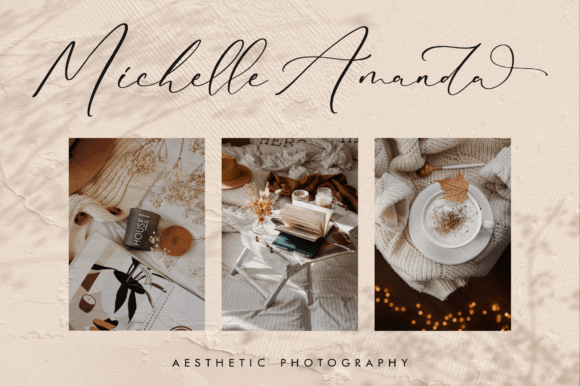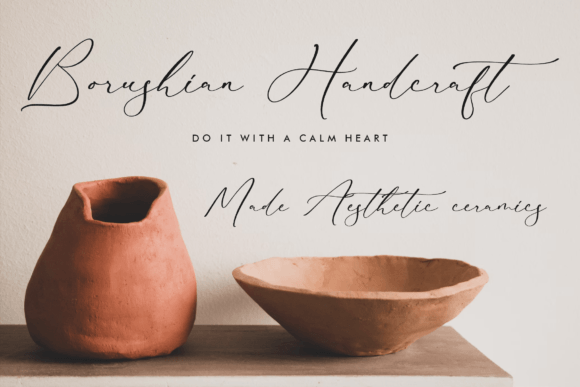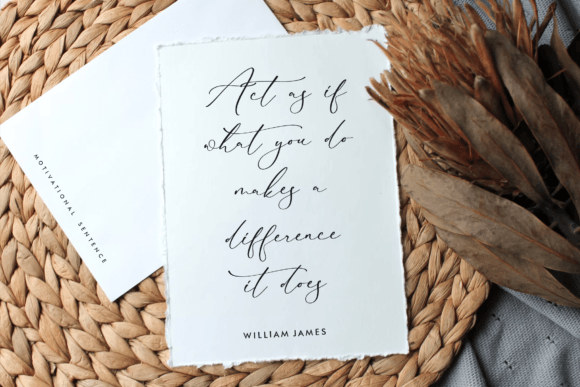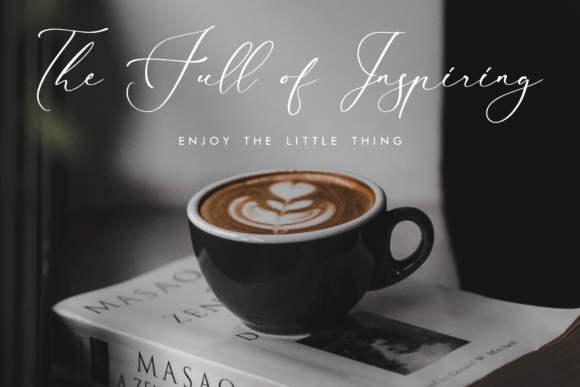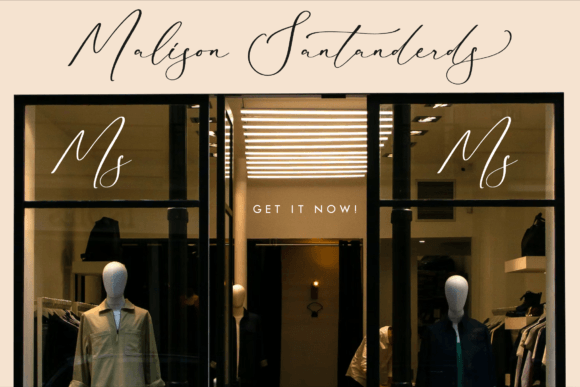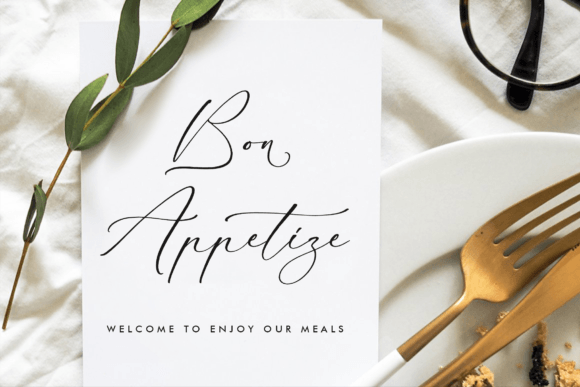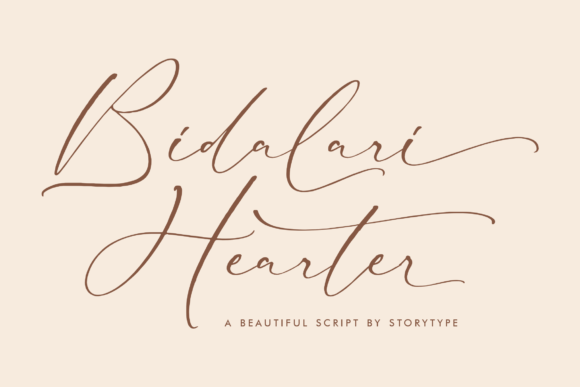
Bidalari Hearter Font: Elevate Your Designs with Elegance and Luxury
In the world of typography, fonts play a crucial role in conveying the tone and personality of a brand, product, or creative project. For designers and crafters seeking to add a touch of sophistication and glamour to their work, the Bidalari Hearter font is an exceptional choice. This beautiful and luxurious script boasts a unique style and modern look, making it perfect for a wide range of applications, from elegant logos and title designs to fashion branding and editorial projects.
The Unique Charm of Bidalari Hearter
Bidalari Hearter is not just another script font; it’s a typeface that stands out due to its distinctive and refined aesthetic. Its letters are carefully crafted to exude a sense of luxury, making it an ideal selection for projects that demand a high level of sophistication. Whether you’re working on a logo, a book or movie title, a fashion brand, a magazine, or even a clothing line, Bidalari Hearter brings an unparalleled level of elegance to your designs.
One of the key advantages of the Bidalari Hearter font is its versatility. Its luxurious and modern appeal makes it suitable for various creative projects. Here are some of the areas where Bidalari Hearter truly shines:
• Elegant Logos: Create a lasting impression with a logo that embodies luxury and sophistication. Bidalari Hearter is perfect for branding that needs to convey high-end quality and elegance.
• Book or Movie Titles: Add a touch of glamour to your book covers or movie posters. The font’s unique style captures attention and promises an engaging story.
• Fashion Brands: For fashion designers and brands, Bidalari Hearter offers a typographic solution that speaks of luxury and style. It’s ideal for branding, packaging, and promotional materials.
• Magazines: Elevate your magazine’s title pages, headers, and quotes with a font that exudes class and sophistication.
• Clothes and Lettering: From t-shirt designs to custom lettering projects, Bidalari Hearter provides a stylish and contemporary look.
• Quotes and Typography: Make your quotes stand out with a beautiful and luxurious script that adds depth and emotion to your typographic compositions.
Why Choose Bidalari Hearter?
Choosing Bidalari Hearter for your design projects comes with several benefits:
• Unique Style: Stand out from the crowd with a font that has its own distinct character.
• Modern Appeal: Keep your designs contemporary and relevant with a font that embodies modern luxury.
• Ease of Use: Bidalari Hearter is designed to be user-friendly, making it easy to incorporate into your projects.
• High Versatility: Use it across various platforms and projects, from digital media to print.
Tips for Using Bidalari Hearter
To make the most out of Bidalari Hearter, consider the following tips:
• Pair it Wisely: Combine Bidalari Hearter with complementary fonts to create visual harmony and contrast.
• Play with Sizes: Experiment with different font sizes to emphasize certain parts of your text and create a hierarchy.
• Adjust Letter Spacing: Fine-tune the letter spacing to ensure your text is readable and visually appealing.
• Use it Sparingly: While Bidalari Hearter is beautiful, using it sparingly can make it more impactful.
Bidalari Hearter font is a game-changer for designers and crafters looking to infuse their projects with a sense of luxury and modernity. Its unique style, versatility, and elegance make it an excellent choice for a myriad of applications. By incorporating Bidalari Hearter into your designs, you’re not just choosing a font; you’re elevating your creative work to new heights of sophistication and appeal. So, why settle for ordinary when you can make your designs extraordinary with Bidalari Hearter?